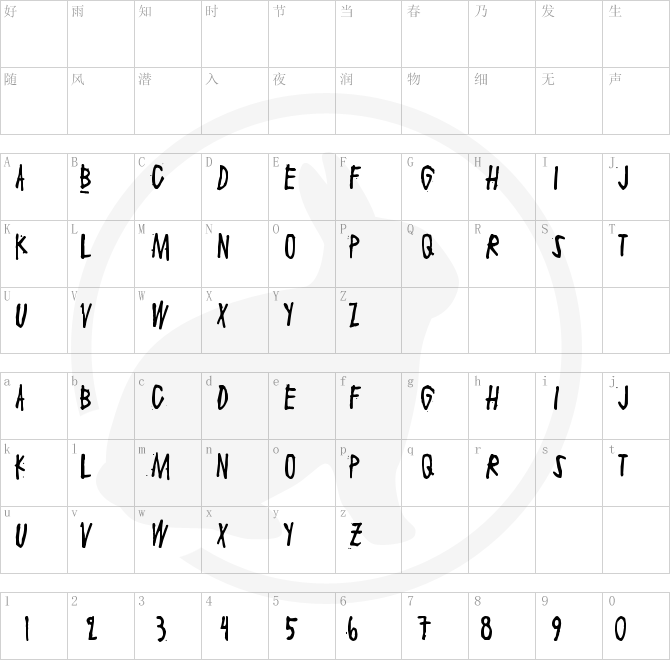
- Font Name:Maaliskuu
Maaliskuu.ttf is a very beautiful artistic font, Maaliskuu.ttf is widely used in the design and printing of various books and pictures,Maaliskuu.ttf has a strong visual impact,Maaliskuu.ttf is a commonly used font in newspapers, magazines and books, and is used in posters, e-commerce Poster design, store design, logo design, font design and other fields.Maaliskuu.